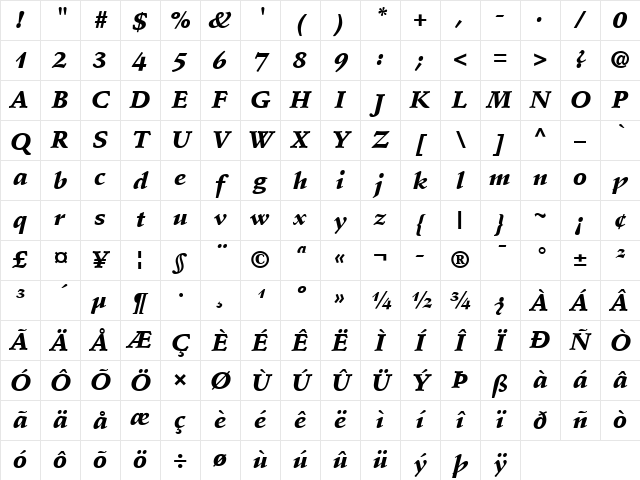
StempelSchneidler LT Medium Bold Italic
Design Context for StempelSchneidler LT Medium
StempelSchneidler LT Medium is a composed and adaptable typeface that performs quietly and consistently across a wide range of design contexts. The slanted form adds forward momentum and visual energy. Its bold stroke weight gives it real presence on the page.
Pro Tip: Use StempelSchneidler LT Medium for emphasis, pull quotes, and subheadings where its slanted energy can add rhythm to the layout.